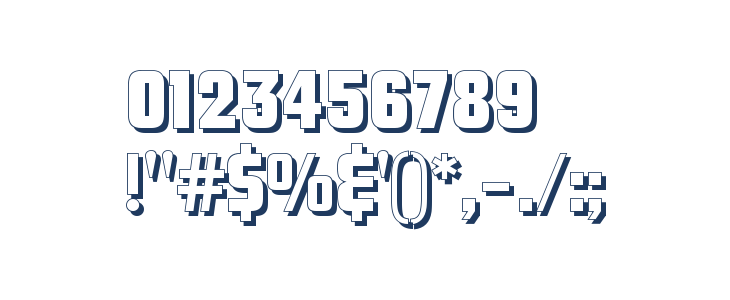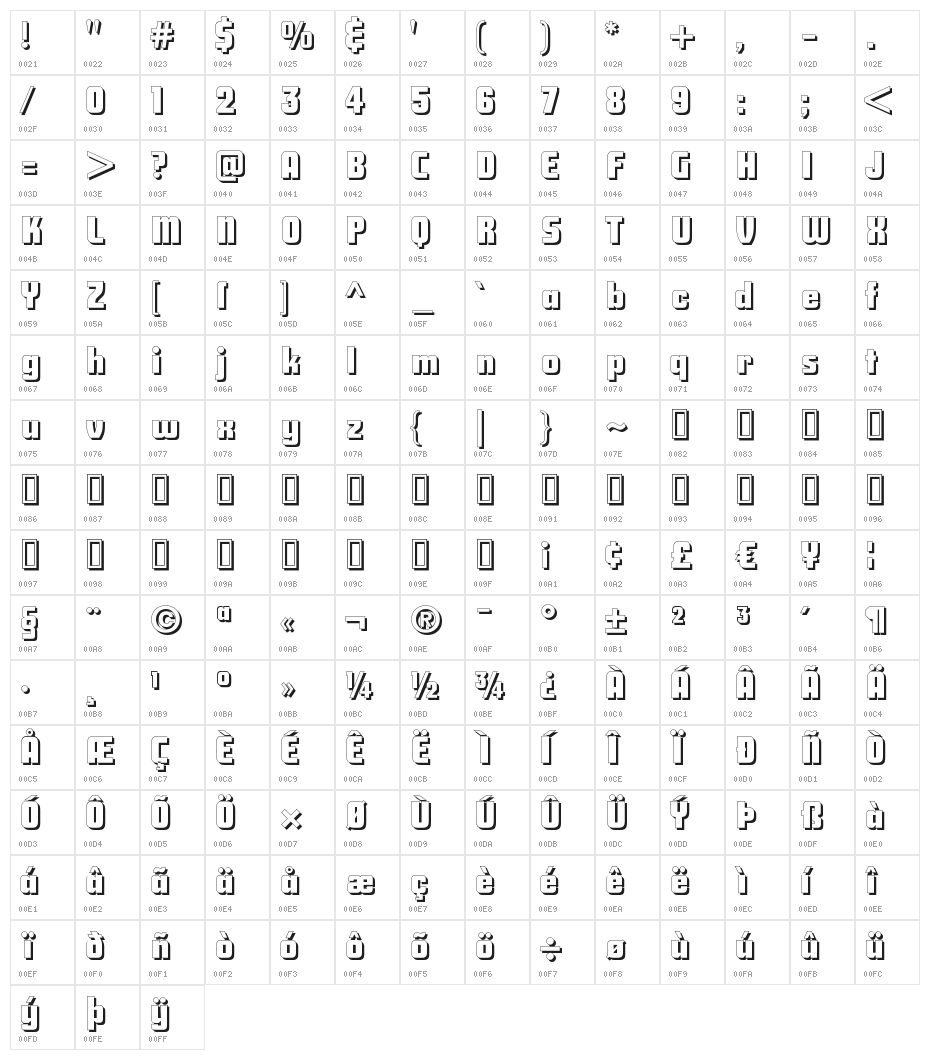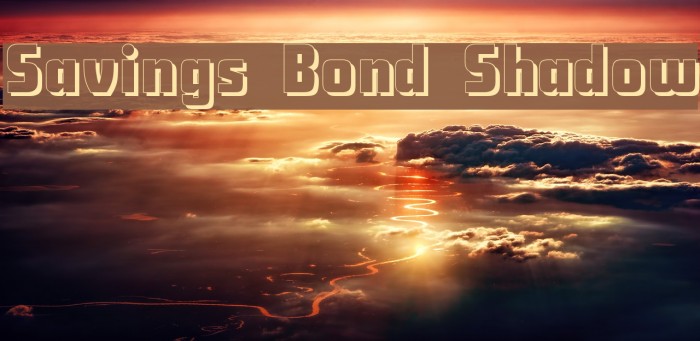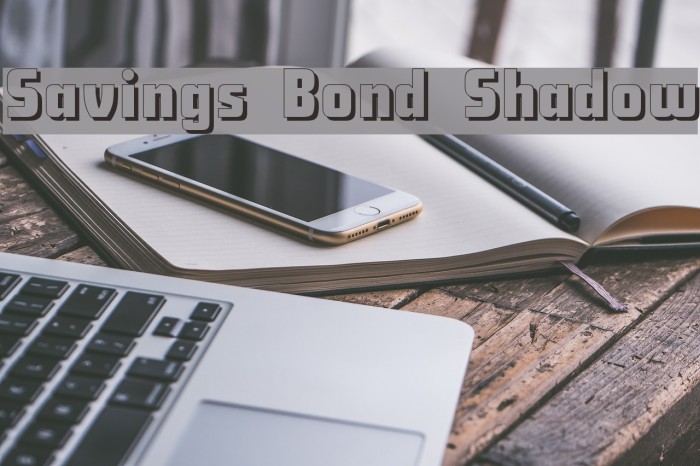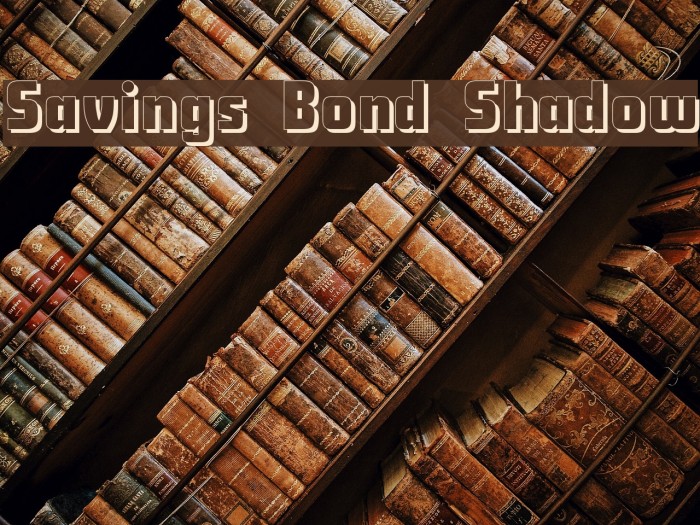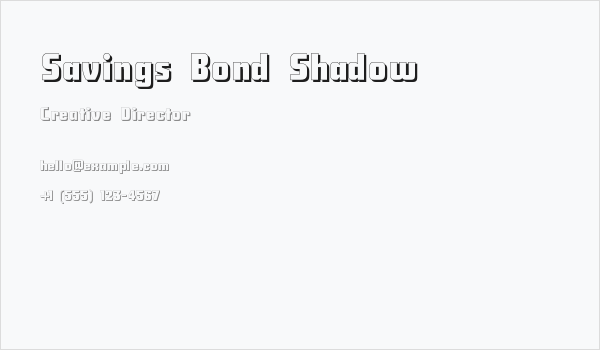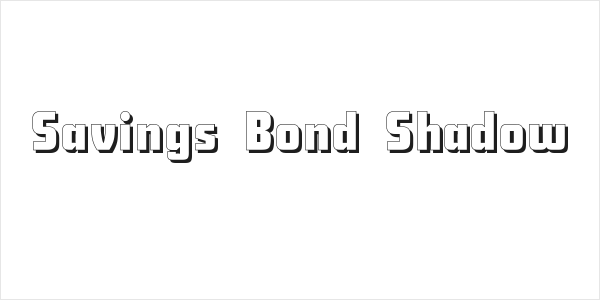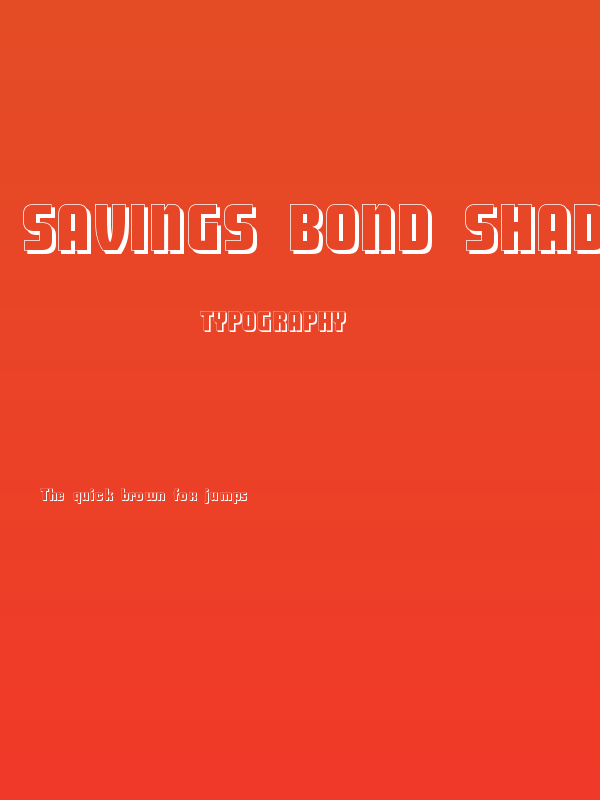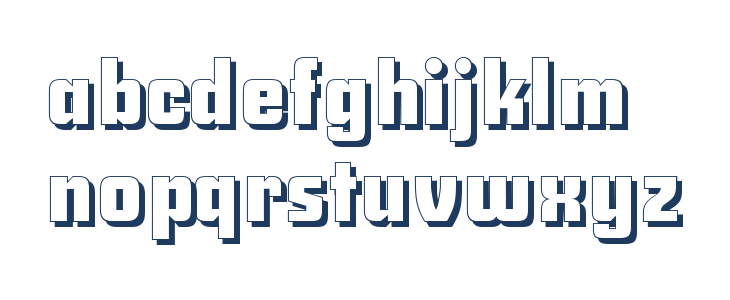
Savings Bond Shadow Font
Savings Bond Shadow Description
This font features a bold, three-dimensional shadow effect that gives it a striking and impactful appearance. The characters are blocky and geometric, with a strong presence that makes them stand out. The uppercase and lowercase letters maintain a consistent style, with sharp edges and a uniform width. The numerals and special characters are designed to match the boldness of the alphabet, ensuring a cohesive look across all text. The shadow effect adds depth and dimension, making it ideal for eye-catching designs.
| Proposed Projects | Ideal for posters, headlines, logos, and any design requiring a bold, attention-grabbing font. |